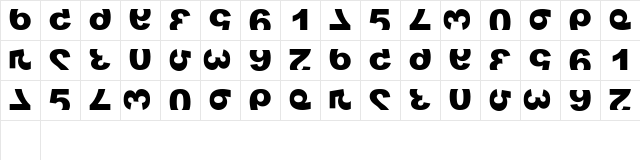
widznumber text 1 Regular
Design Context for widznumber text 1 Typeface
widznumber text 1 offers clean, dependable letterforms without strong stylistic allegiance, making it a practical choice for designers who need flexibility.